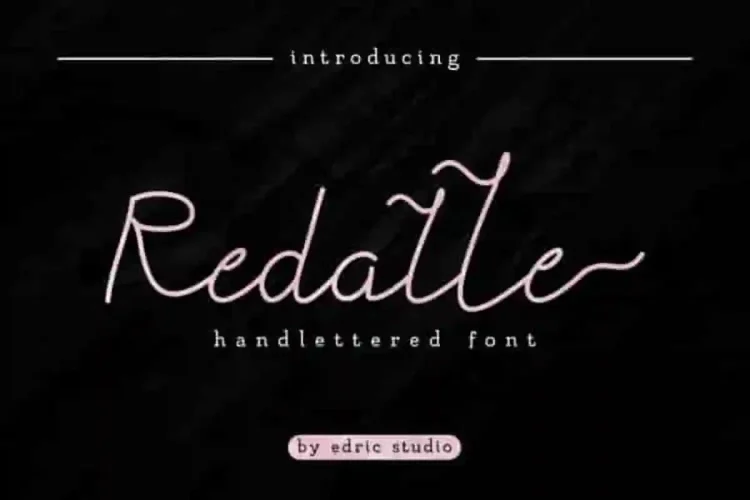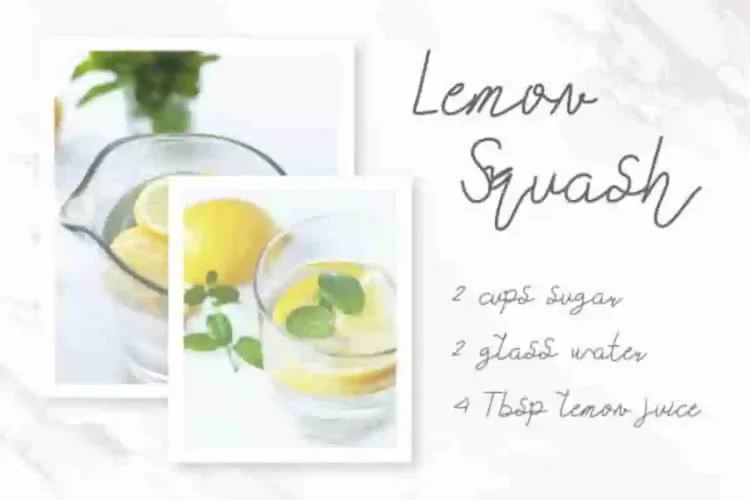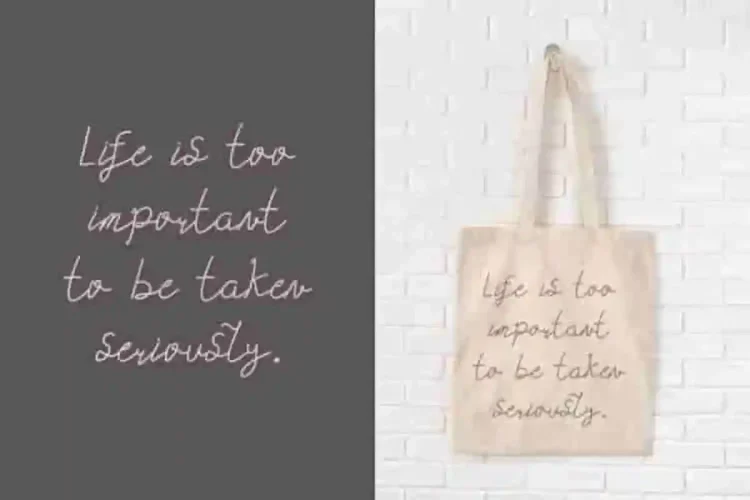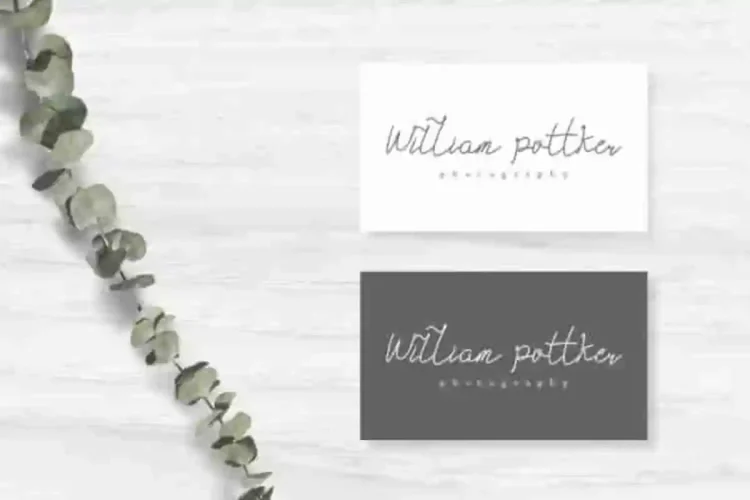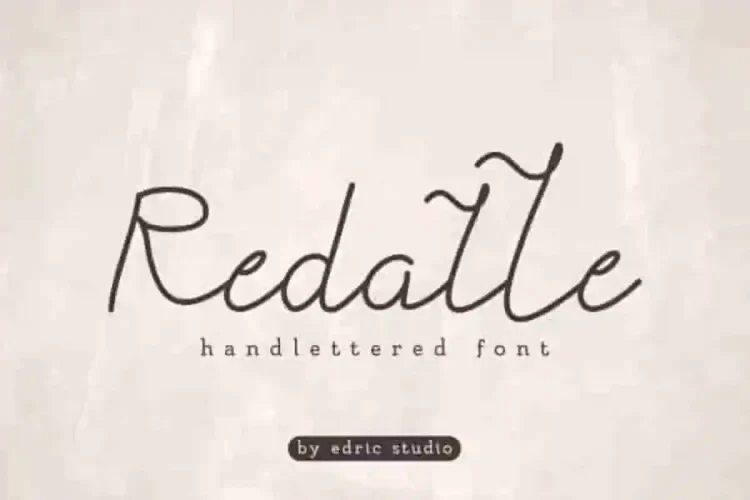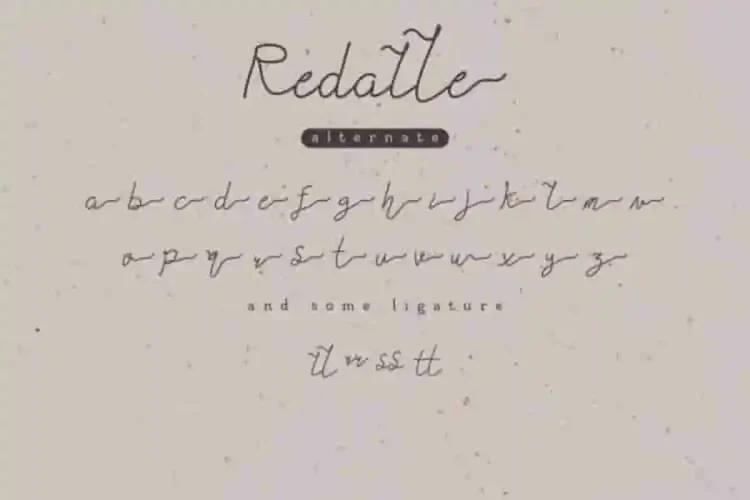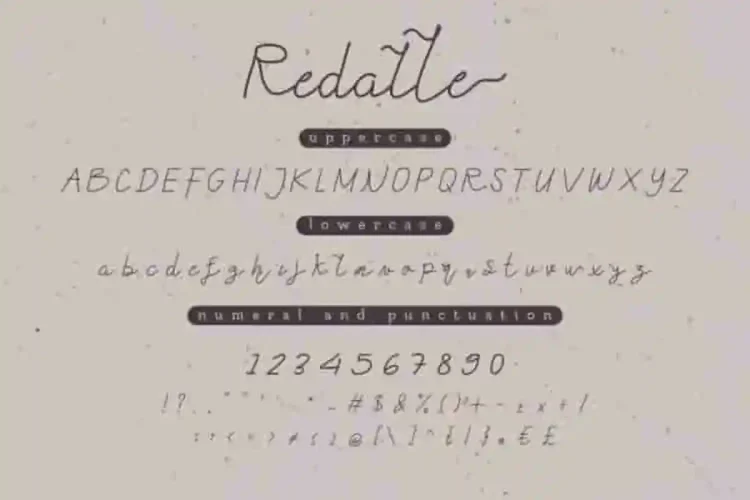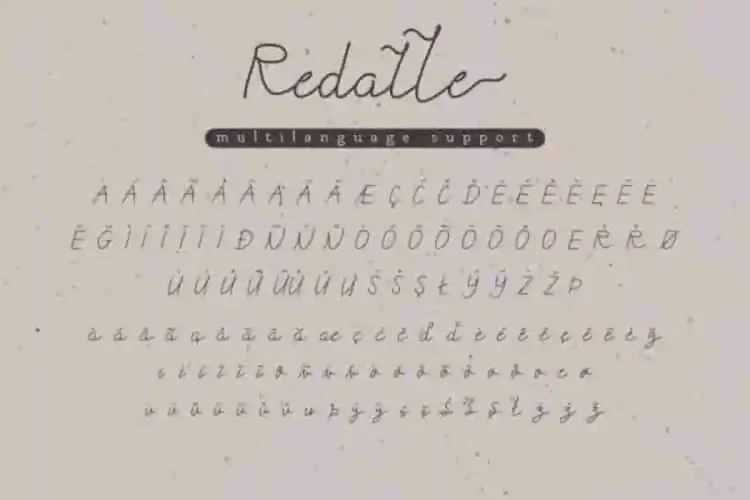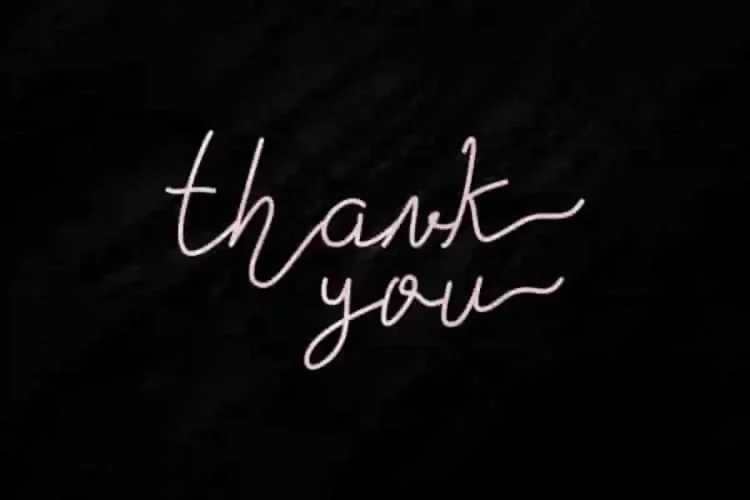
Redalle Monoline Signature Font
This is EDRIC Studio, Please welcome! The newest font from our artists. A signature font : Redalle Monoline Font !
Redalle is a signature font, handcrafted from our Studio here in, Indonesia. The artists/designers of this beautiful typeface is Saila.
Redalle Monoline Font is a stunning signature script typeface with manual pen style. This font has a stunning characters set, perfectly managed with well spaced and kerning. The theme style of this font will elegant,  vintage, stylish and sophisticated style. You wont find any where else, the font like Redalle Monoline Font.
Redalle Font will be good for any projects including : branding, logo, stationery, business card, signage, flyer, brochure etc. Almost all industries will be match for this typeface: wedding, events, real estate, architect, law firm, florist, gardening, makeup artist, travel, hotel, musician etc